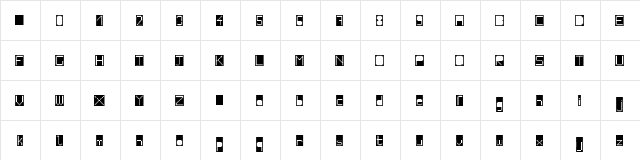
WLM Pixel Party Black Fill Regular
| Designer | Wolf Lambert |
Design Context for WLM Pixel Party Black Fill Typeface
WLM Pixel Party Black Fill is rooted in pixel-grid construction, making it a natural fit for game UI, retro computing aesthetics, and digital nostalgia projects.
Well-suited to indie game interfaces, retro computing aesthetics, and pixel art-adjacent design work.
Pro Tip: Use WLM Pixel Party Black Fill at sizes that align with its pixel grid for the sharpest rendering — scaling to non-integer multiples can introduce unwanted blur.